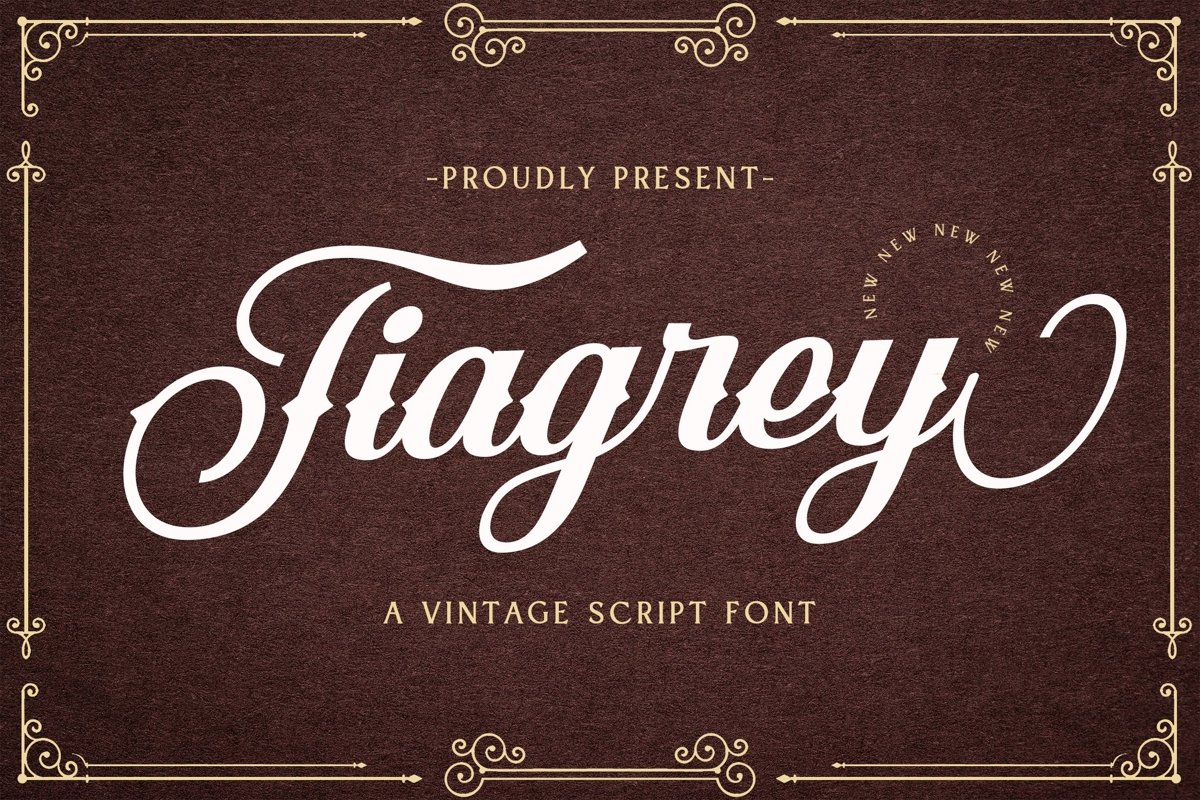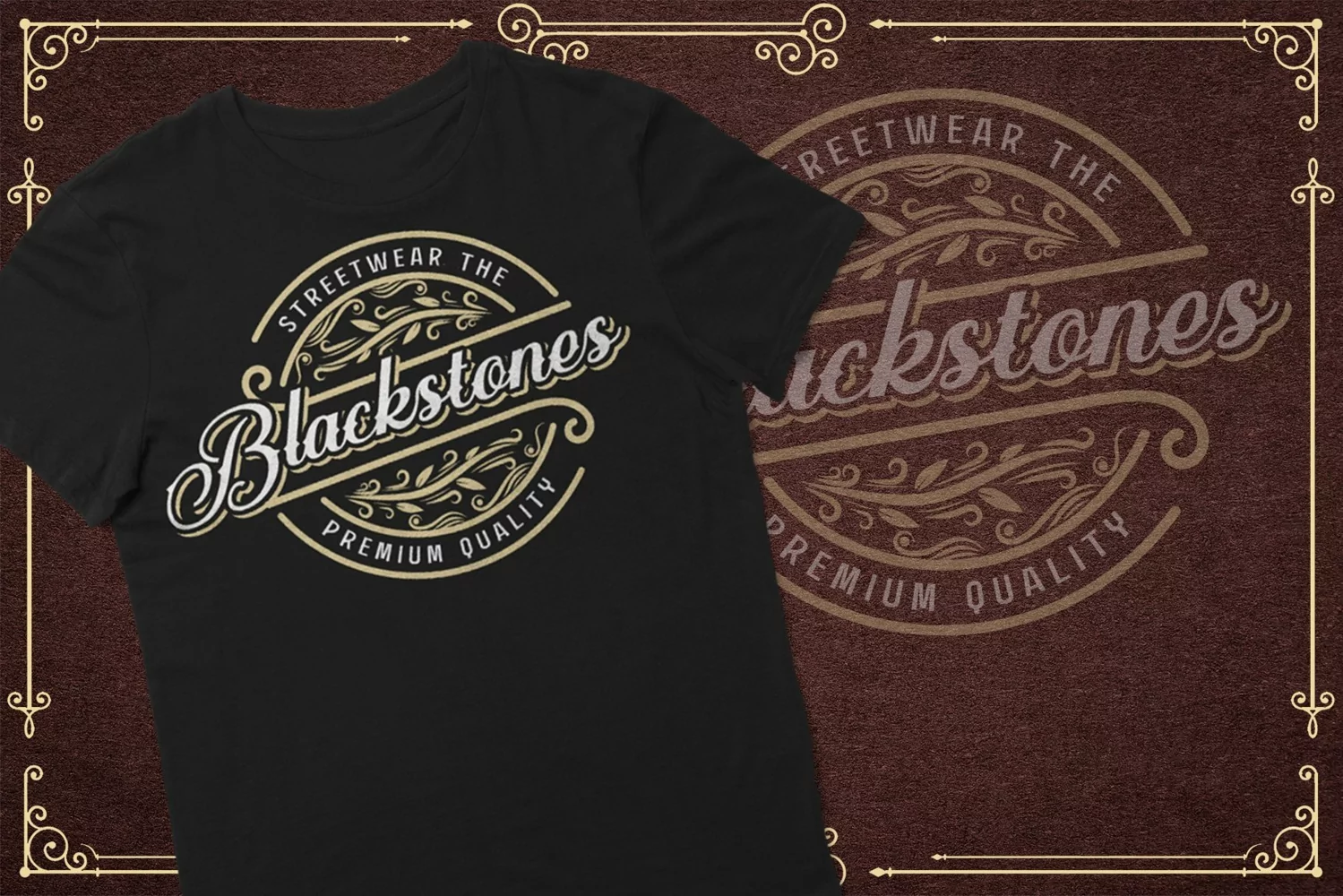
Tiagrey is a vintage script typeface. Perfect for display, quotes, merchandise, print, t-shirt, mug, pillow, pin, logo, logotype, header, tittle, tattoo, badges, emblem, wedding needs, business card, branding, packaging and many more.